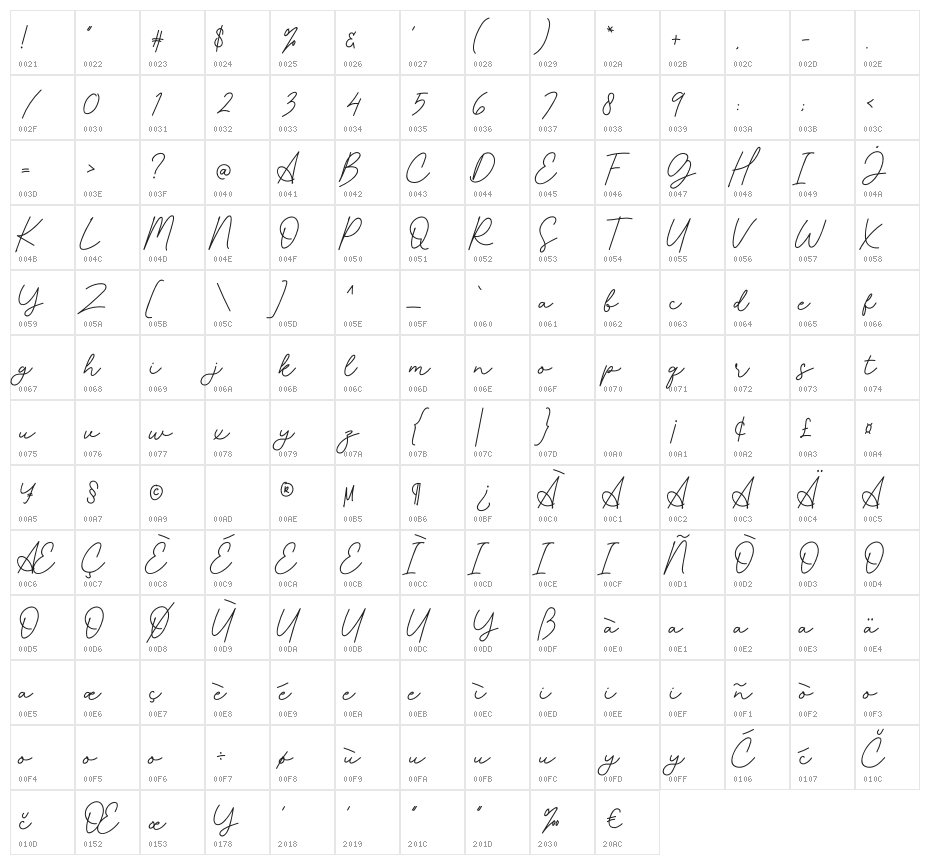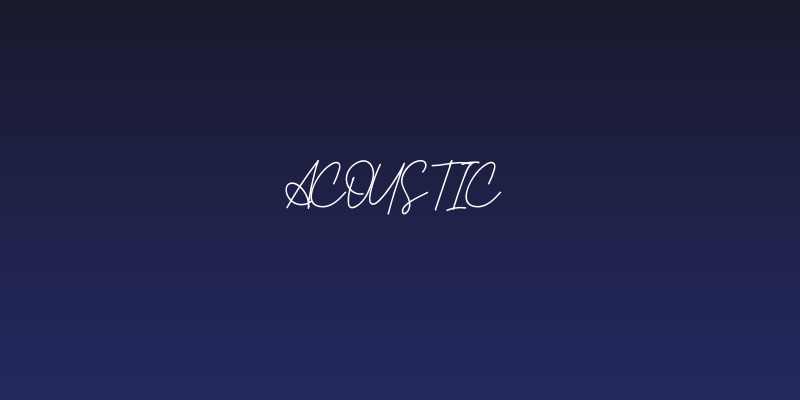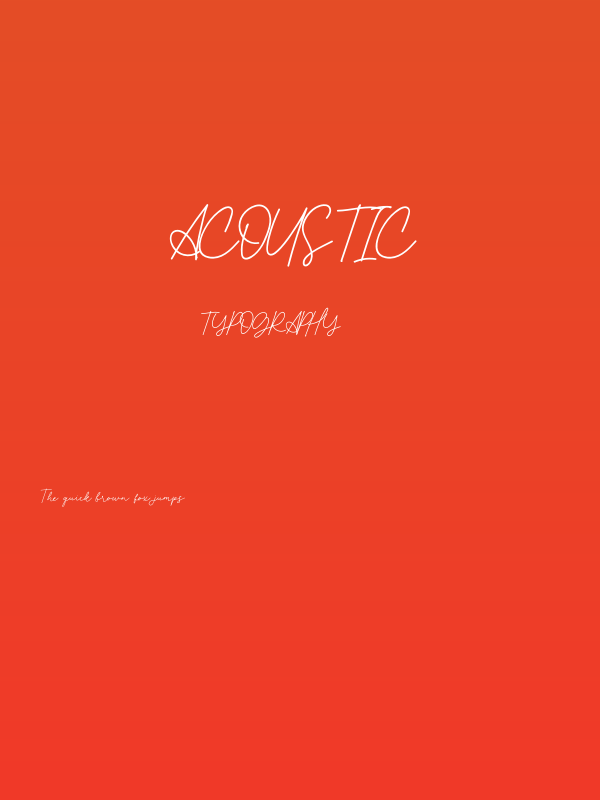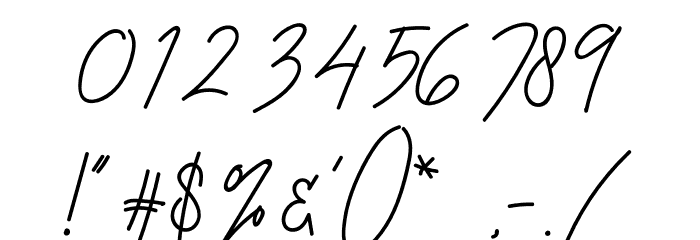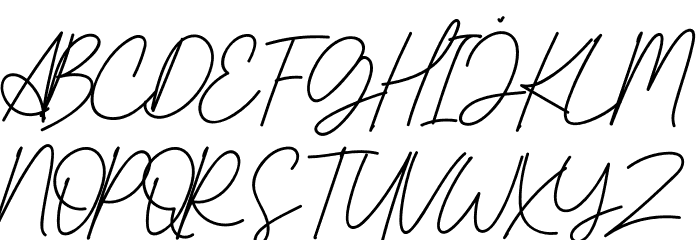
Acoustic Font
Acoustic Description
This font exudes a sense of elegance and fluidity, characterized by its handwritten style that mimics natural cursive writing. The letters are connected in a smooth, flowing manner, giving it a personal and intimate feel. The strokes are consistent in their thinness, providing a delicate and airy appearance. The uppercase letters maintain a sense of sophistication with their elongated forms, while the lowercase letters are compact yet graceful. The numerals and special characters follow the same stylistic cues, ensuring uniformity across the typeface. This font is perfect for projects that require a touch of elegance and personal flair.
| Overall Style | Elegant, Personal |
| Proposed Projects | Ideal for wedding invitations, personal branding, greeting cards, and elegant stationery. |